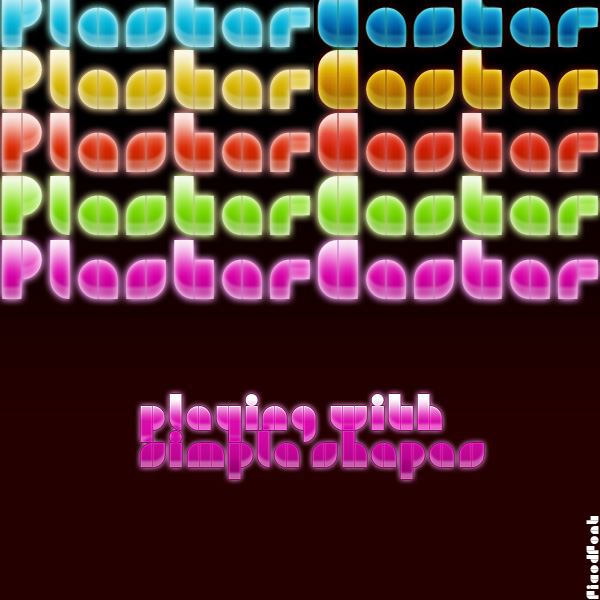
Preview and download Plaster Caster Font. Created by Salvo Nicolosi in Fancy Groovy styles with Free for personal use license.
PlasterCaster tamarrofunk, horny, hard (to read) font hopefully unhard version coming soon PERSONAL USE You can use it for free for personal use. Please give credit if you can (something like: font used is "Plaster Caster" by ficod + a link to my deviantart or dafont page). COMMERCIAL USE If you're going to earn money for a project involving this font, I would consider correct to make a donation. Imho a donation is not a payment, so you're free to donate as much as you want (be kind, please!). Use the button on this site "donate to author" or send me donation via Paypal to: s . nicolosi @ gmail . com (remove spaces) |